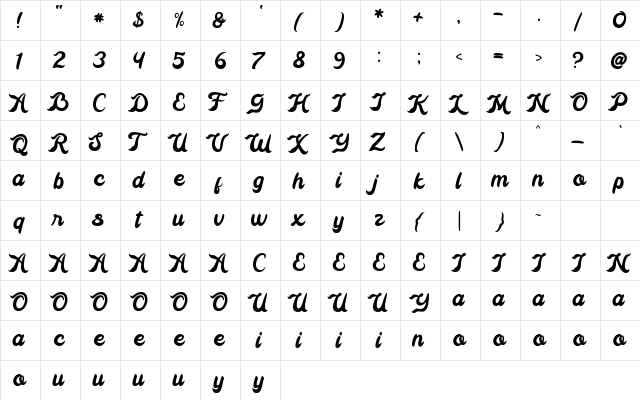
Radio Classic Demo Regular
Design Context for Radio Classic Demo Typeface
Radio Classic Demo wears its vintage influences proudly, with letterforms that recall mid-century signage, classic packaging, and nostalgia-driven design.
Font Pairing: Combine Radio Classic Demo with a simple slab or neutral sans — period-accurate companions reinforce the vintage feel without competing for attention.
Pro Tip: Lean into Radio Classic Demo's period character by pairing it with aged paper textures, muted colour palettes, and vintage illustration styles.